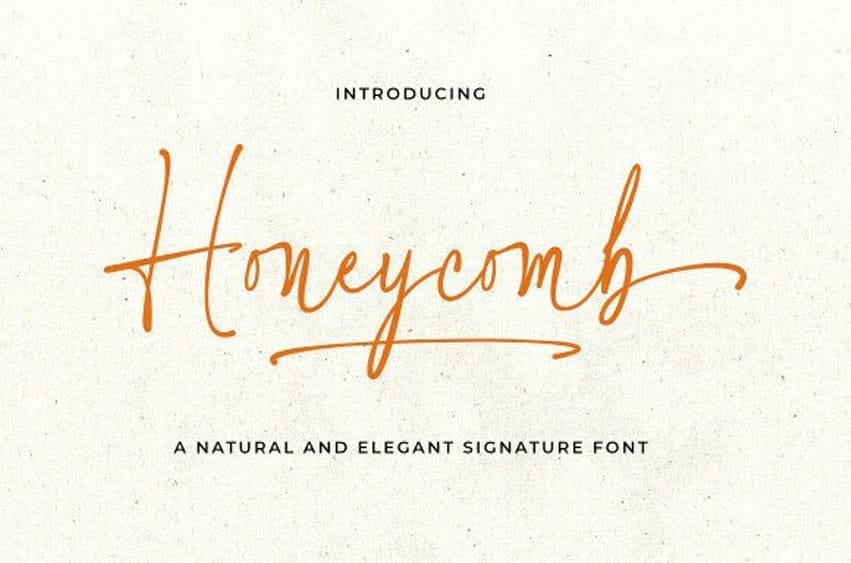
Honeycomb Natural Font is a modern signature script font designed to bring elegance, warmth, and an authentic handcrafted feel to your creative projects. With its natural flow, sleek loops, and organic stroke variations, Honeycomb captures the effortless beauty of real handwriting.
Perfect For: Branding & Logos, Wedding Invitations, Boutique Packaging, Product Labels, Magazine Layouts, Book Covers, Instagram Quotes, Watermarks, and Digital Banners.